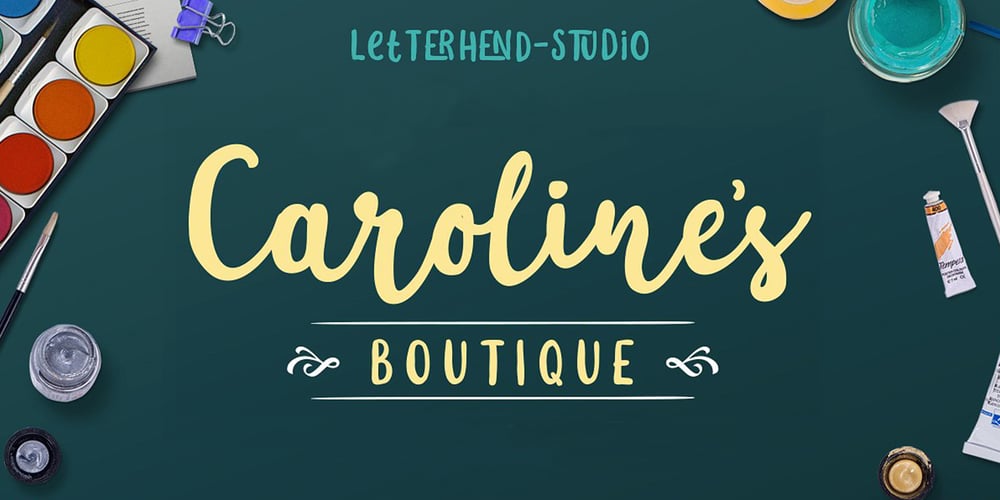
Sakra
Sakra font
Sakra Font Family was designed by Hendry Juanda and published by Letterhend. Sakra contains 4 styles and family package options. Sakra is a font duo with regular and script which is perfectly used for your fun & casual project! Sakra! font duo includes upper & lowercase characters, punctuation, numerals, and multilingual support. It also has many open type alternates and ligatures.If there’s any question please feel free to send me a message and I will be more than happy to help! Thanks and have fun!